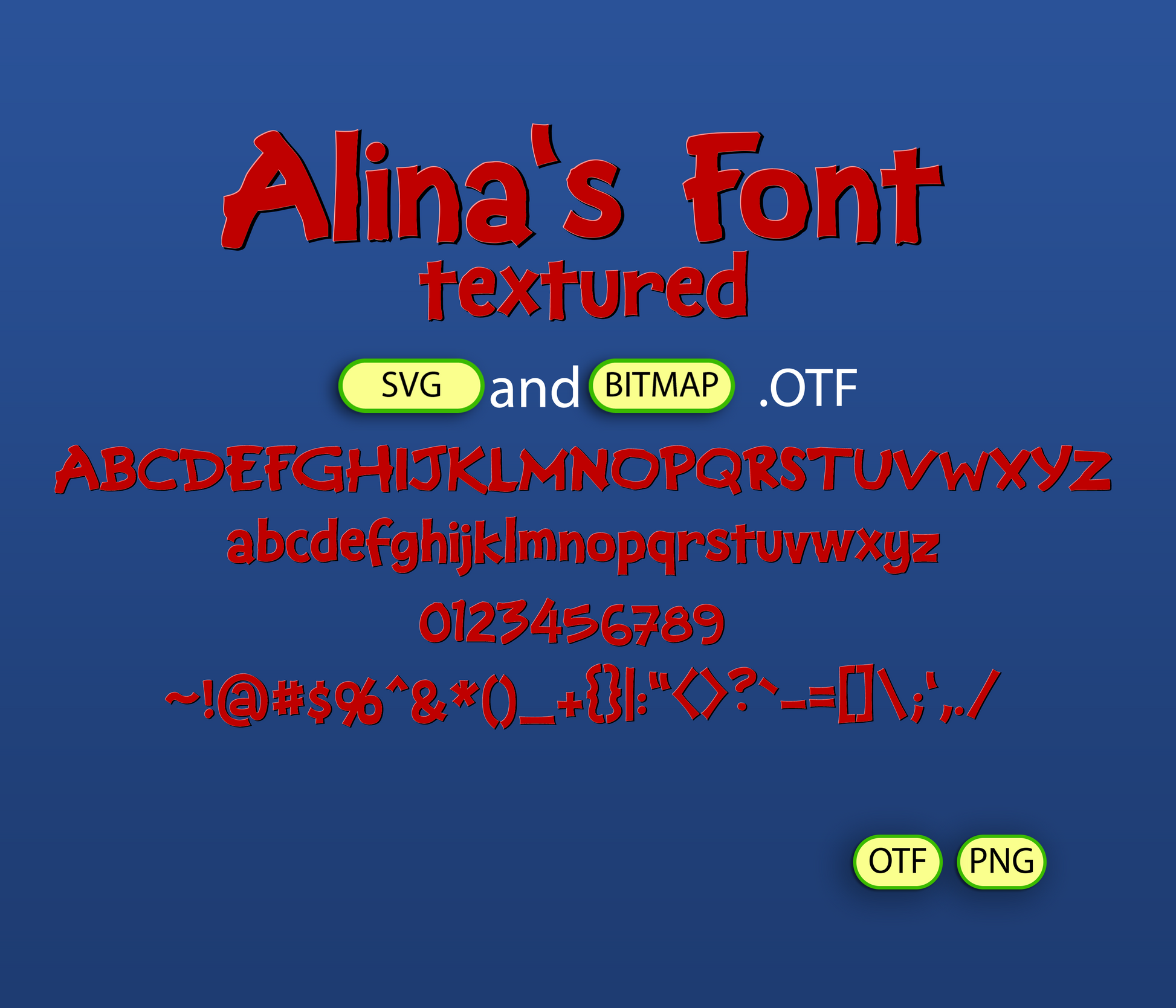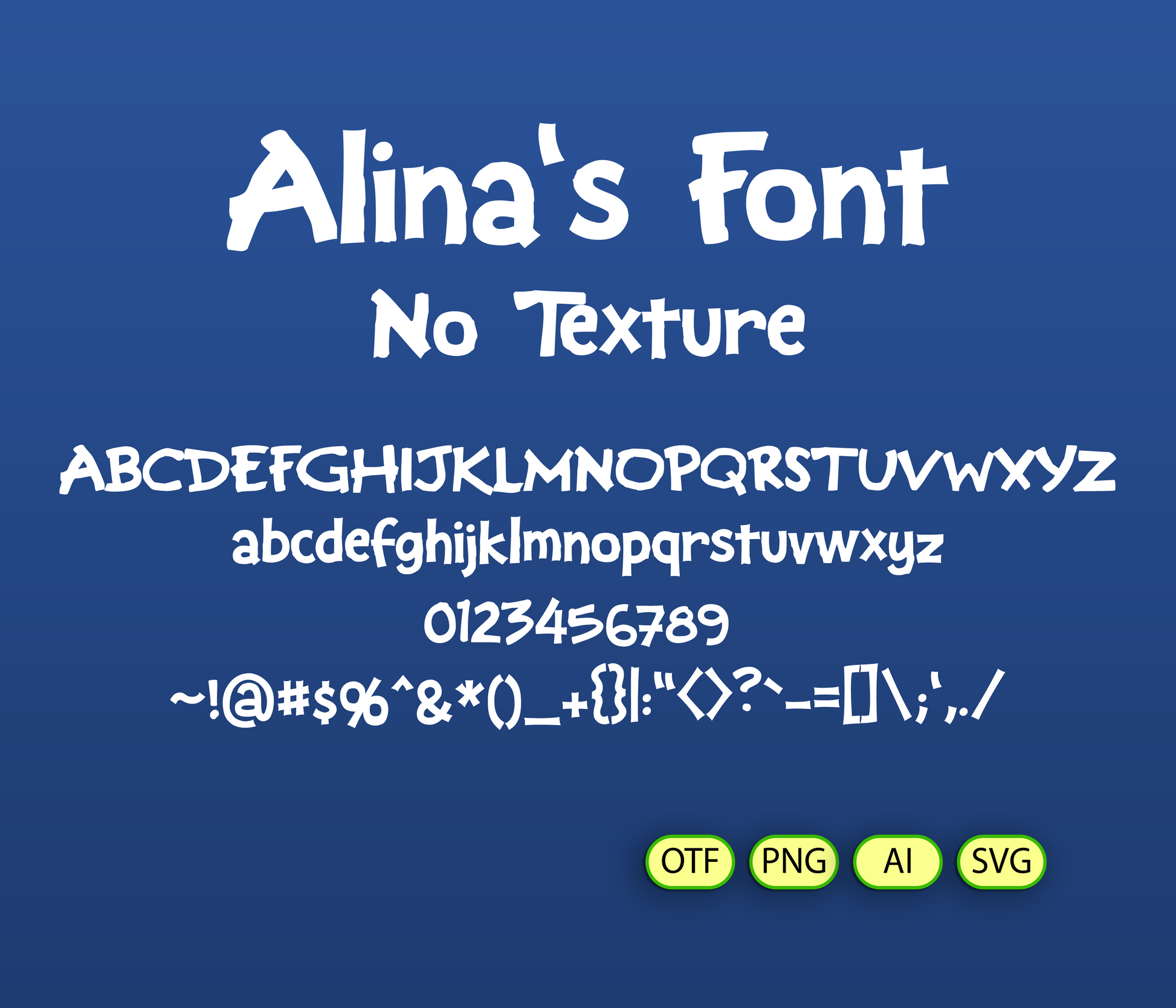
Mischief Maker Font Textured
Mischief Maker Font: A Playful Typeface for Cricut Crafting
Step into a world of whimsy with the Mischief Maker Font, a typeface inspired by the playful and impish nature of mischievous creatures, meticulously crafted for Cricut crafting enthusiasts. With each stroke, this font captures the unpredictable yet endearing essence of these curious beings. Perfect for adding a touch of playful mischief to your Cricut projects, the Mischief Maker Font is suitable for a wide range of applications, be it playful branding, imaginative illustrations, or creative crafts.
Whether you're designing a quirky logo, a fun event invitation, or a playful print, this font seamlessly integrates with Cricut machines, embodying a spirit of misadventure that's bound to resonate with audiences. Its playful characters bring a sense of wonder and amusement, making any Cricut project stand out with a fun, unique flair.
The Mischief Maker Font is not just a collection of letters, but a celebration of creativity unbound by the ordinary, perfect for Cricut crafting. Its distinctive character set and well-crafted design make it an outstanding choice for creators looking to inject a dash of playful charm into their Cricut crafting projects. With the Mischief Maker Font, let every word tell a whimsical tale, making your Cricut projects as enchanting and lively as an impish adventure.